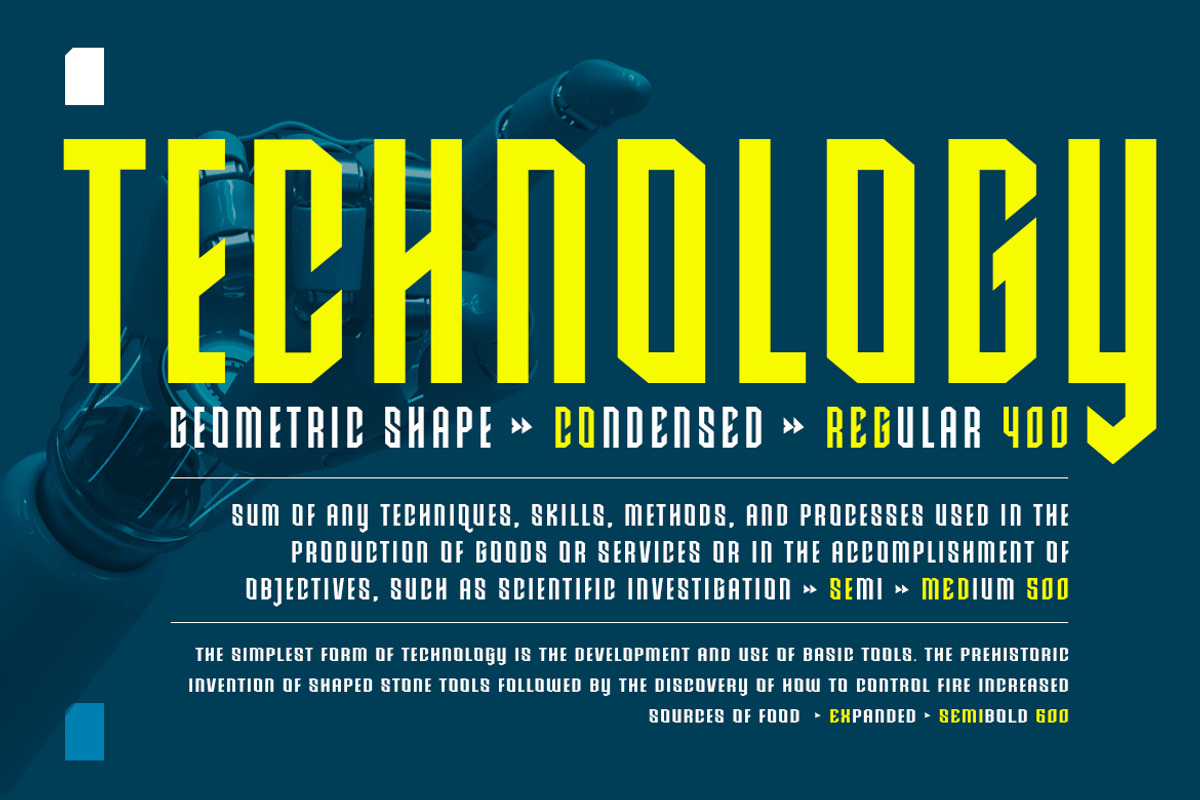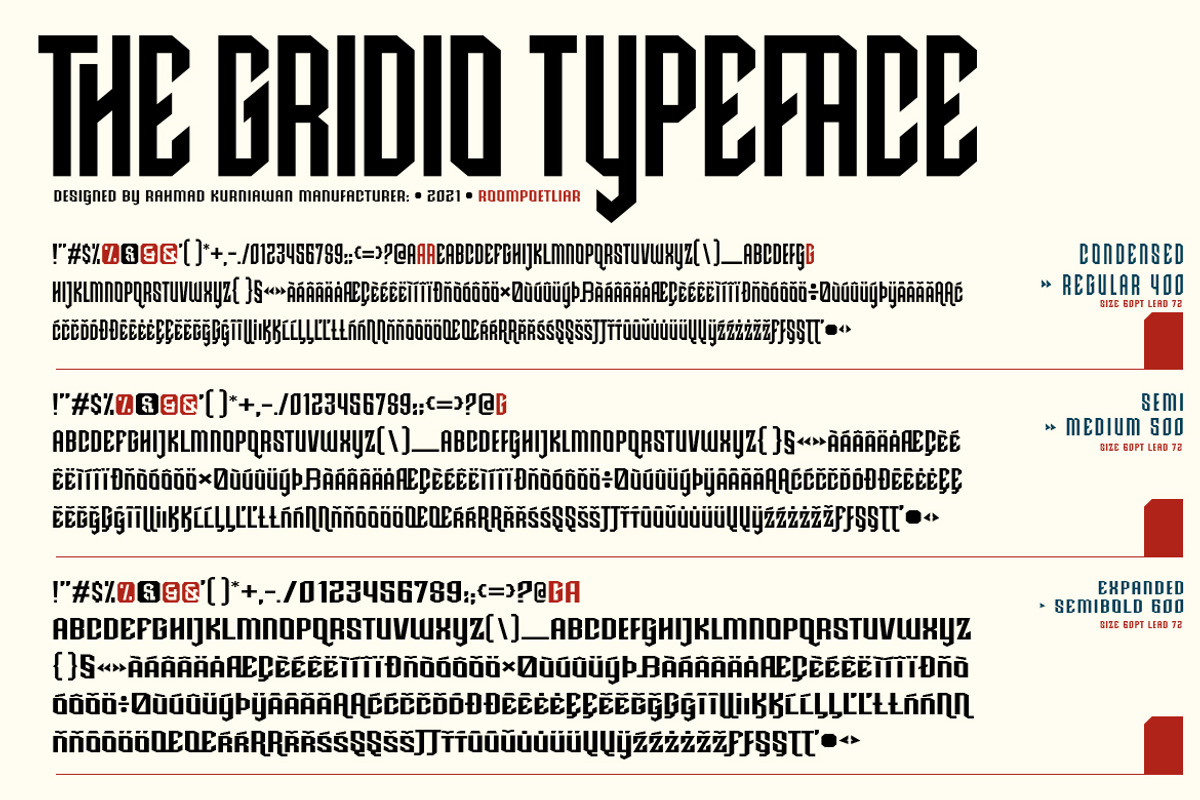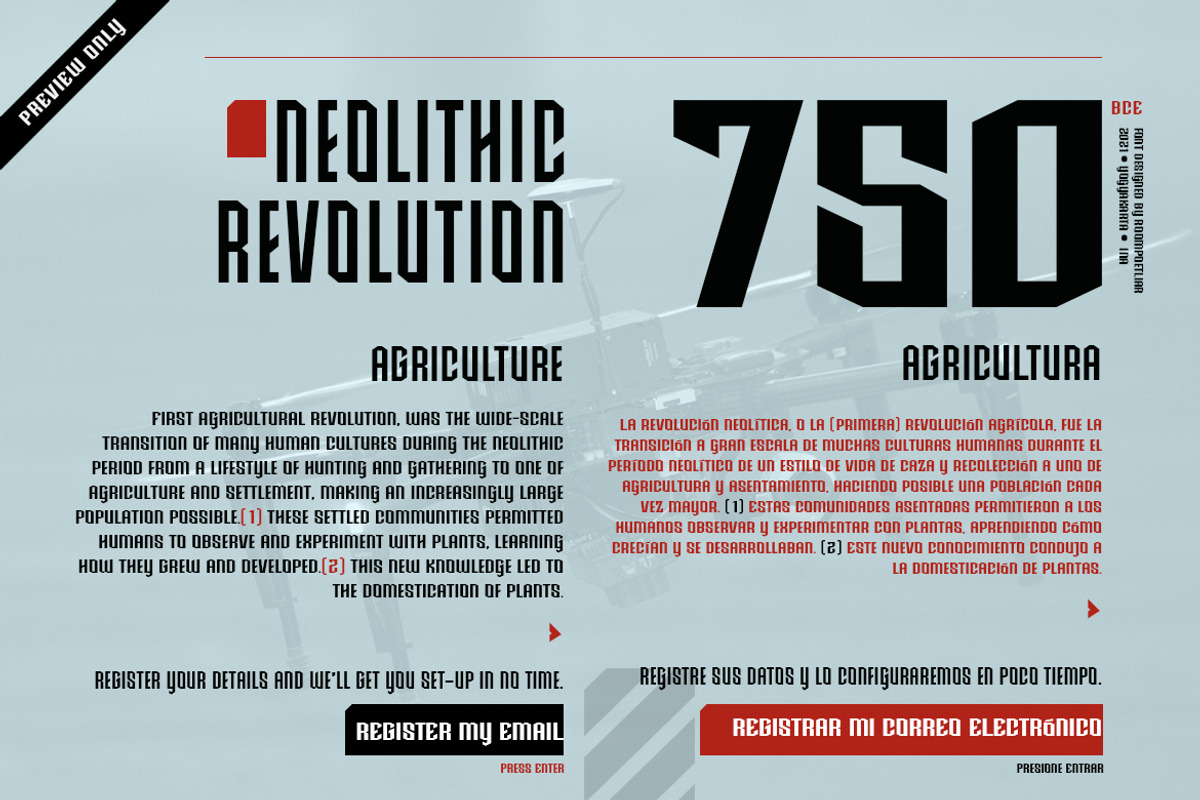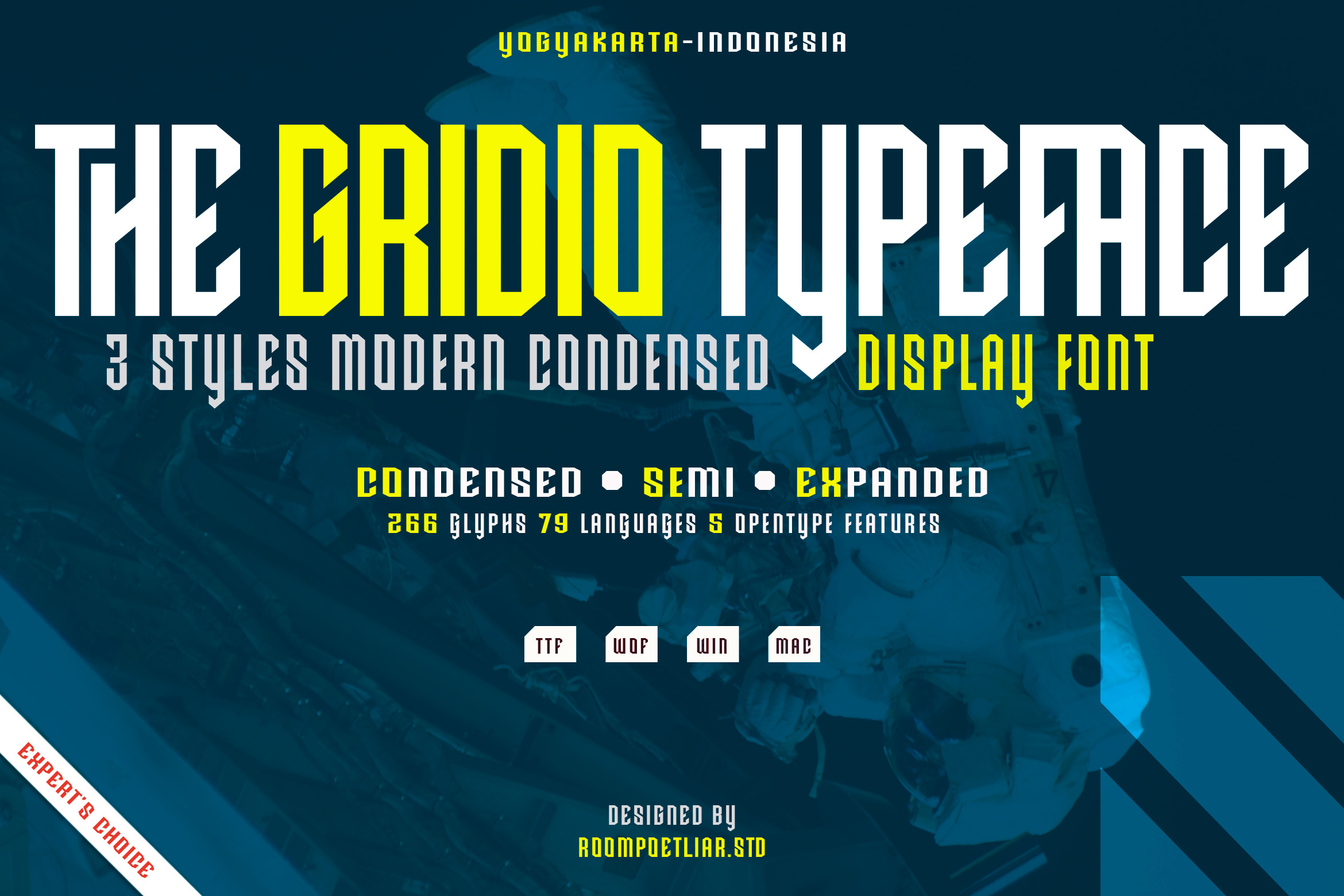
Gridio Font Display
Gridio Font Display is a futuristic font, inspired by sci-fi and technology. Designed the font with a modern feel to achieve the theme. It is also well suited for branding, magazine, marketing design, technology, sci-fi design, bag, poster designs, headlines, typography projects (streetwear, construction, resistance, solidarity, movement, revolution), Religion events, E-Sport logos, sports jersey text, and much more.
CONTAINS • 3 Styles Fonts • 5 OpenType features • 79 languages • 265 glyphs • Alternates • Localized Forms • Stylistic Set 01 & 02